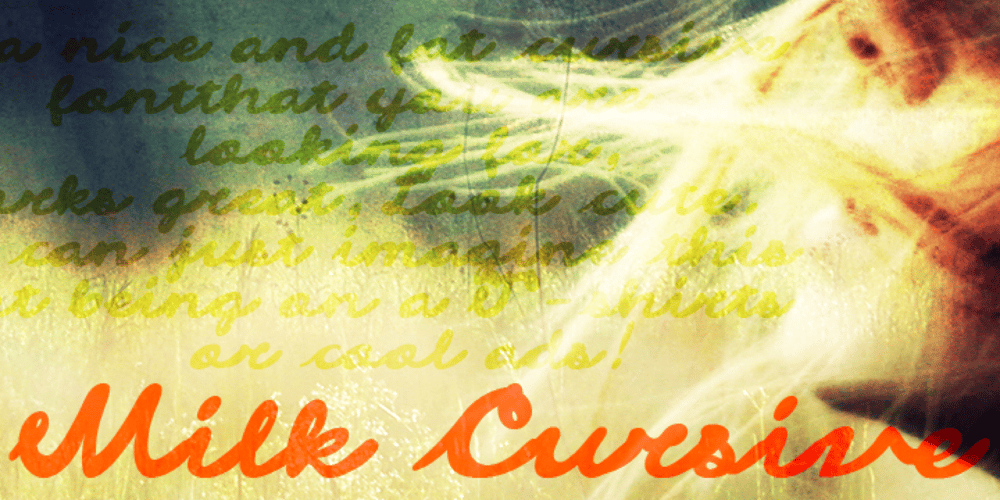
Milk Cursive Font Family was designed by Luke William Turvey and published by Okaycat. Milk Cursive contains 1 styles and family package options. Milk Cursive is the healthy choice. Fortify your designs & fulfill your daily textual needs with these flowing, bubbly letters. Enjoy the refreshingly natural look of an every-man’s calligraphy with a fat & wide style. Milk Cursive is extended, containing West European diacritics & ligatures, making it suitable for multilingual environments & publications. It also contains some icons as extra characters, such as a star, a heart, an arrow, flowers, a butterfly, and manicules (pointing hands). Go ahead and have fun with it!